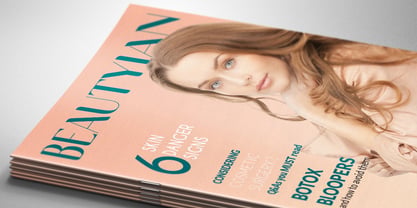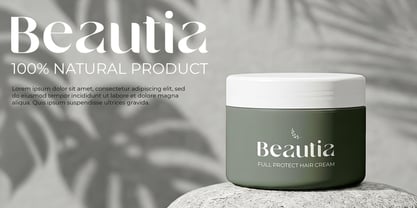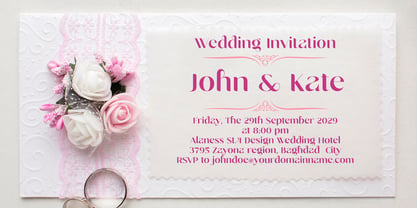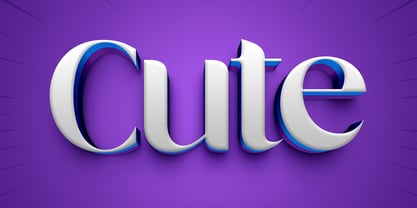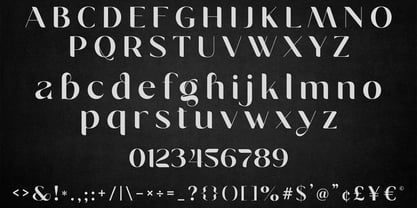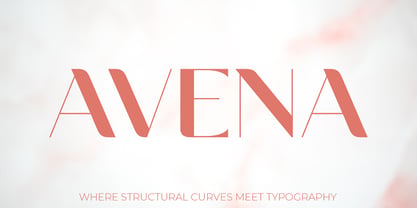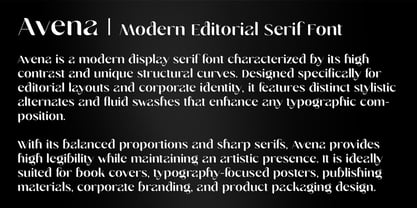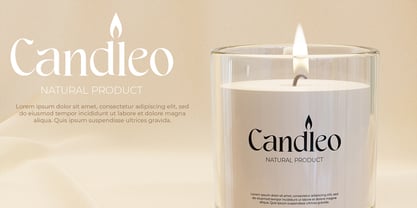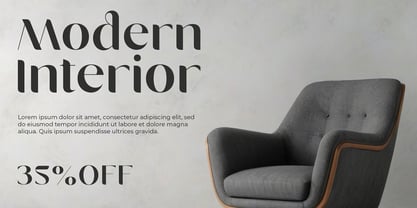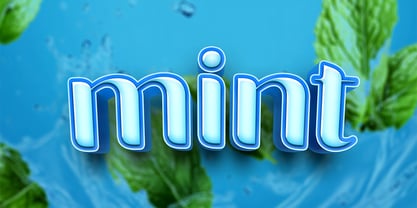
Avena
The Avena Font Family was designed by Omar Mahmood and published by OWPictures. Avena contains 1 styles. More about this family
Avena is an elegant and luxurious display serif font designed for maximum visual impact and exceptional legibility. Featuring sophisticated structural curves and carefully crafted stylistic alternates, this premium typography is perfect for a wide range of exclusive projects. It is highly suitable for high-end editorial layouts, luxury corporate identity, elegant product packaging, botanical home goods, and vibrant 3D lettering applications. The font includes complete uppercase and lowercase alphabets, numerals, and standard punctuation, offering designers the flexibility needed to create clean, striking, and modern compositions.